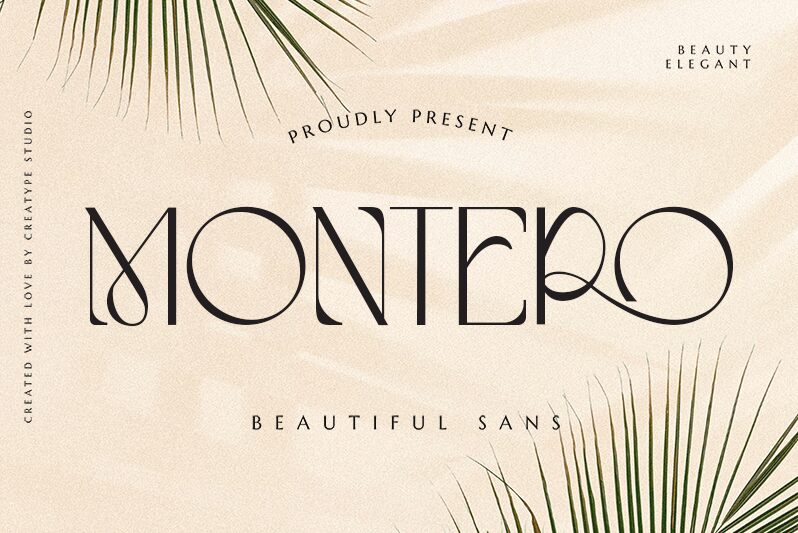
Montero
Montero font by Creatype Studio is a refined display font with an elegant and sophisticated appearance. It comes with ornamental details that grant it a unique artistic flair for modern and creative projects.